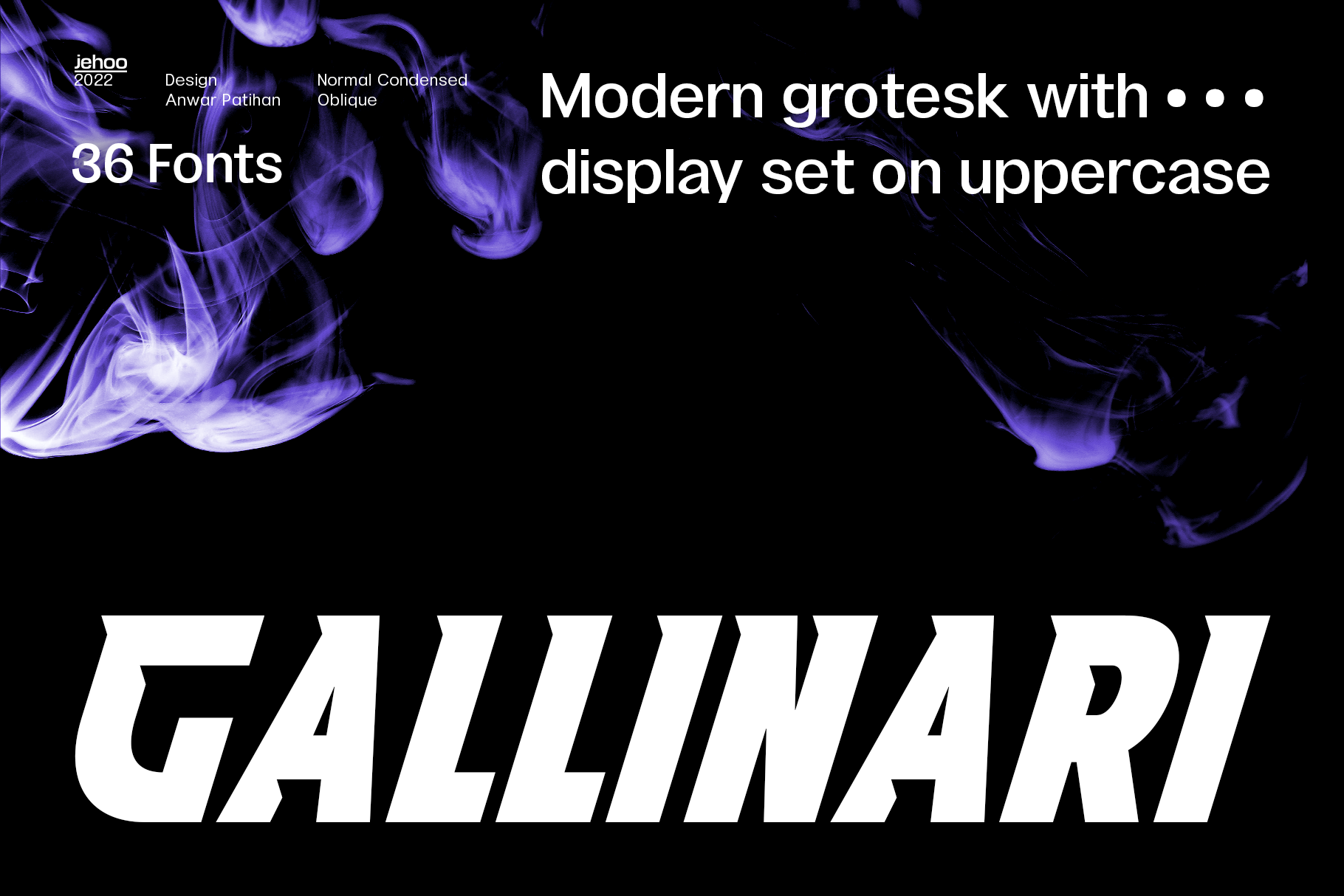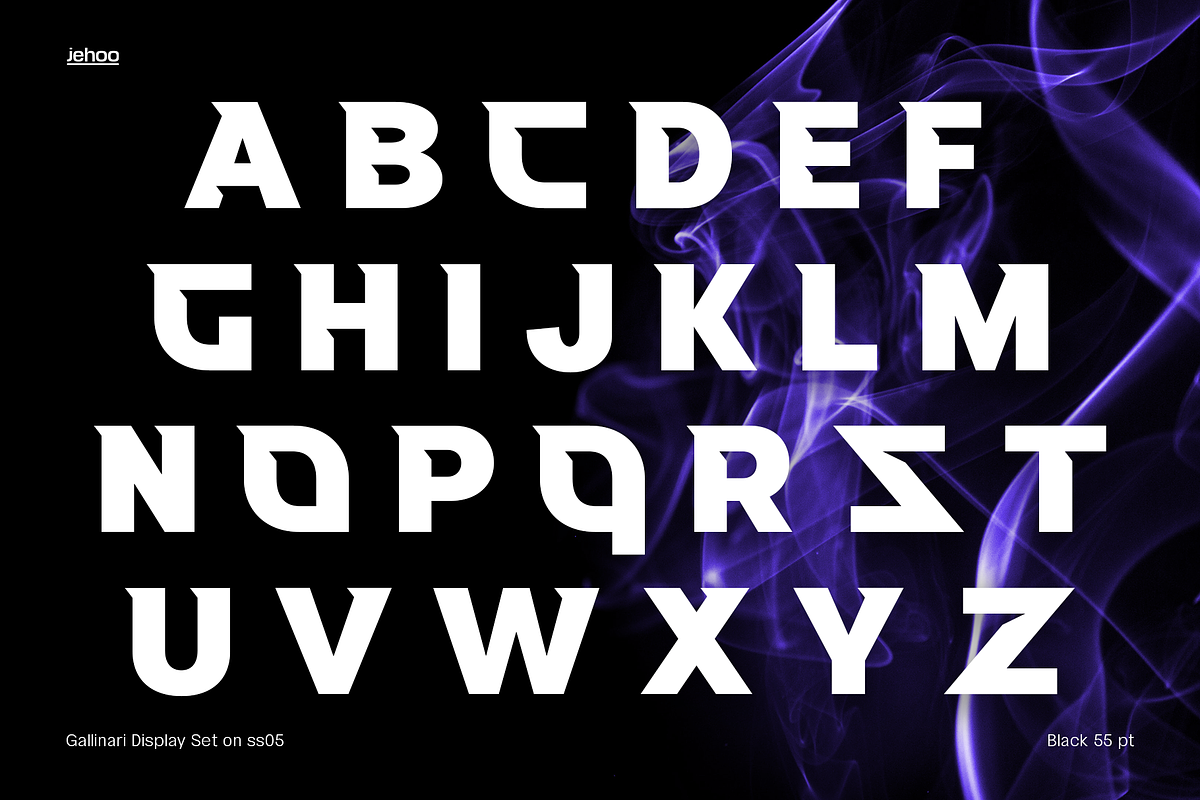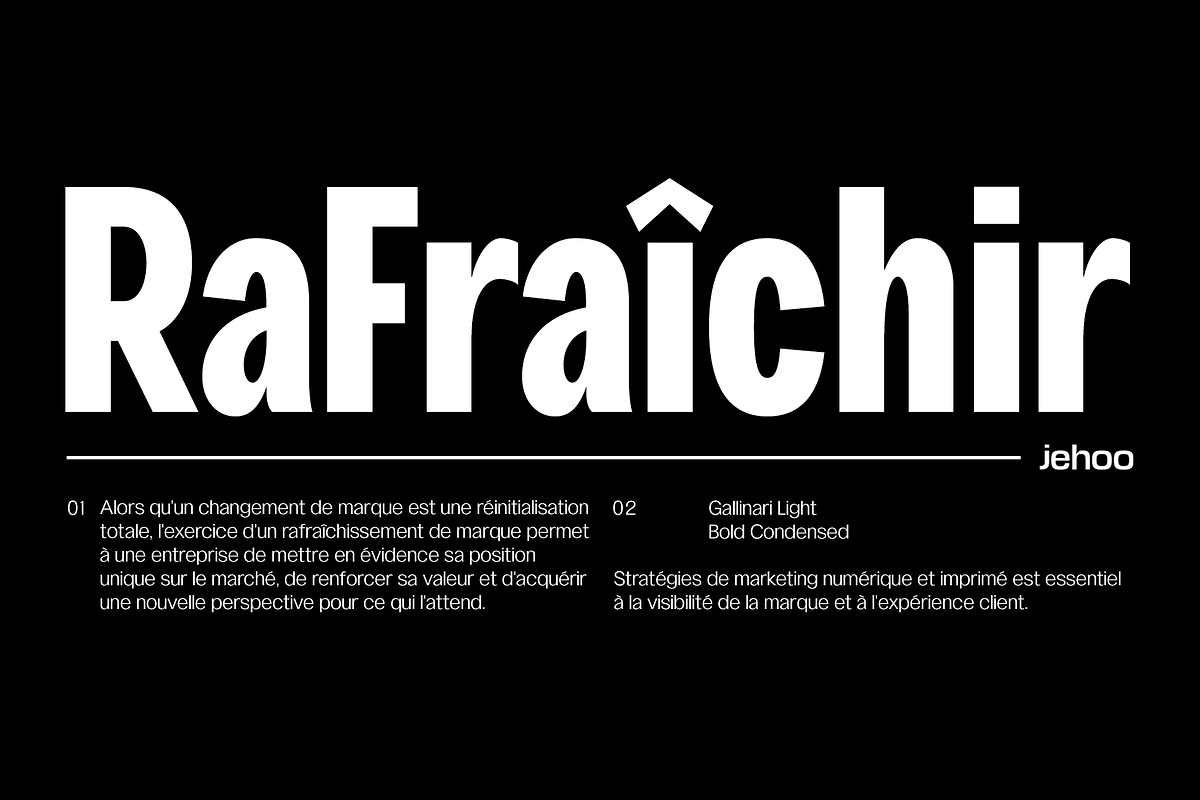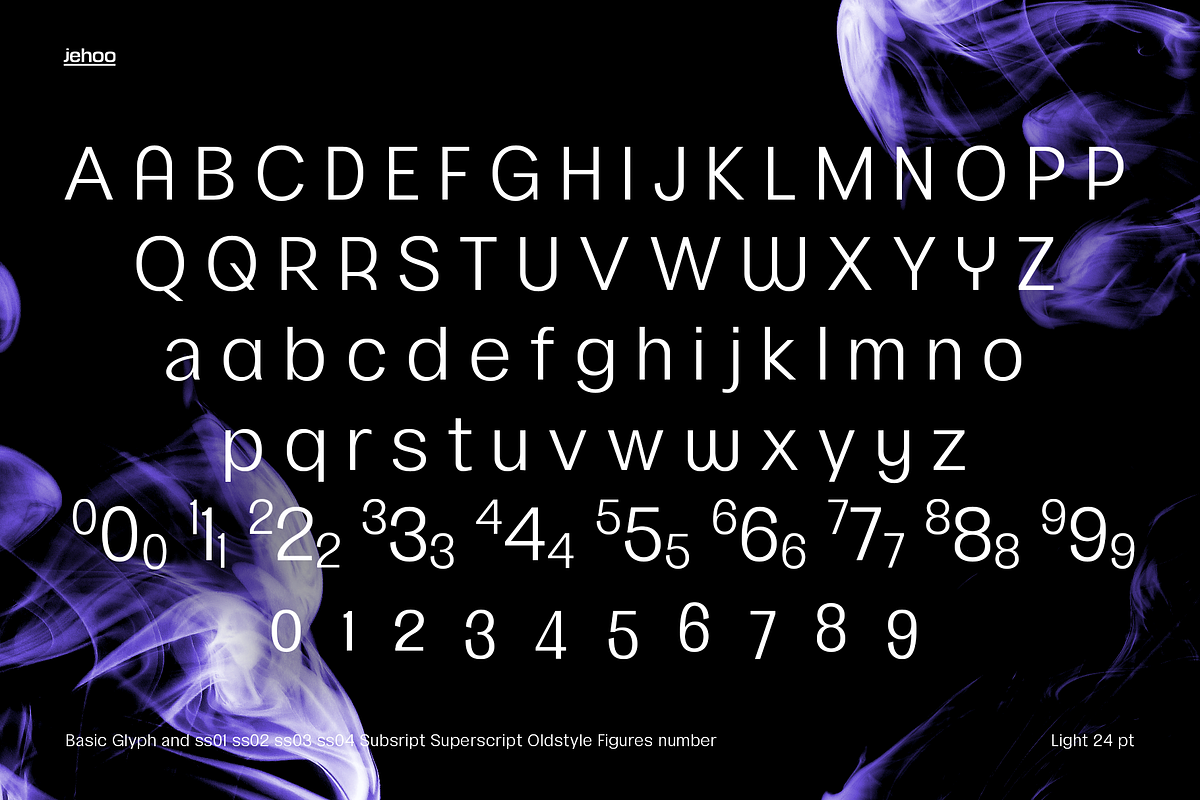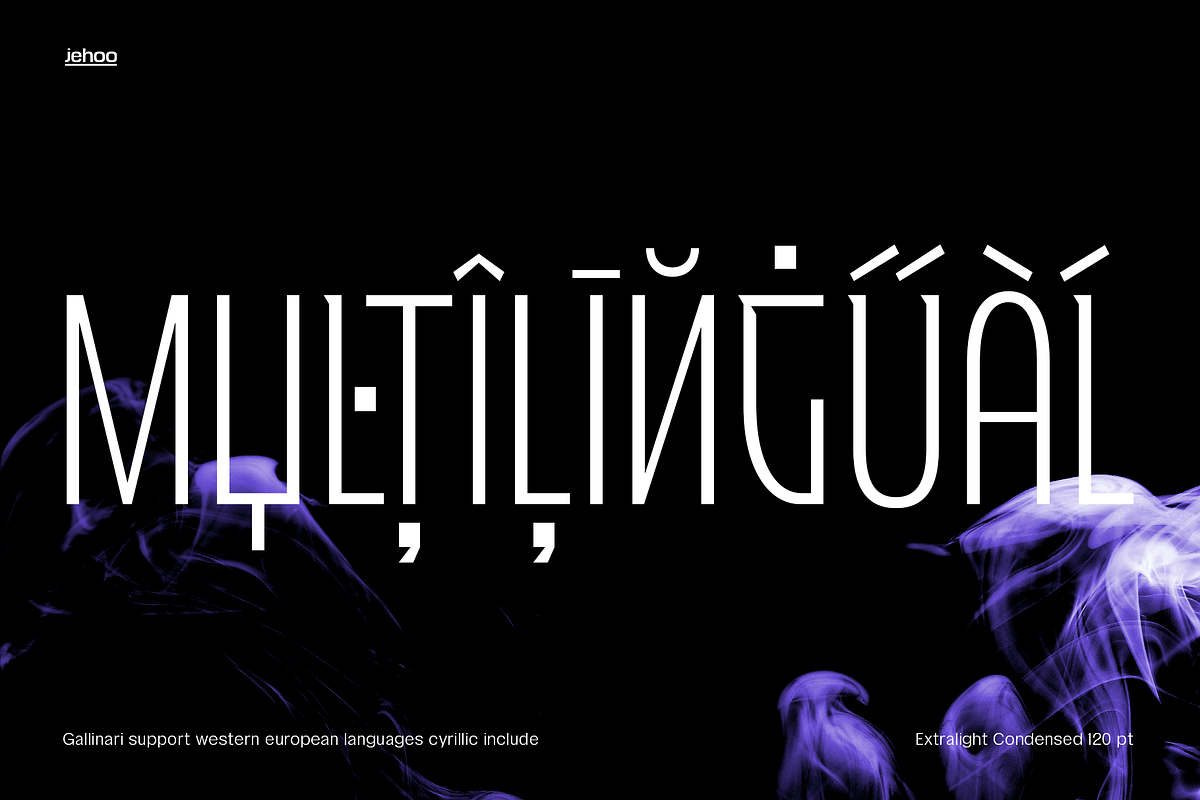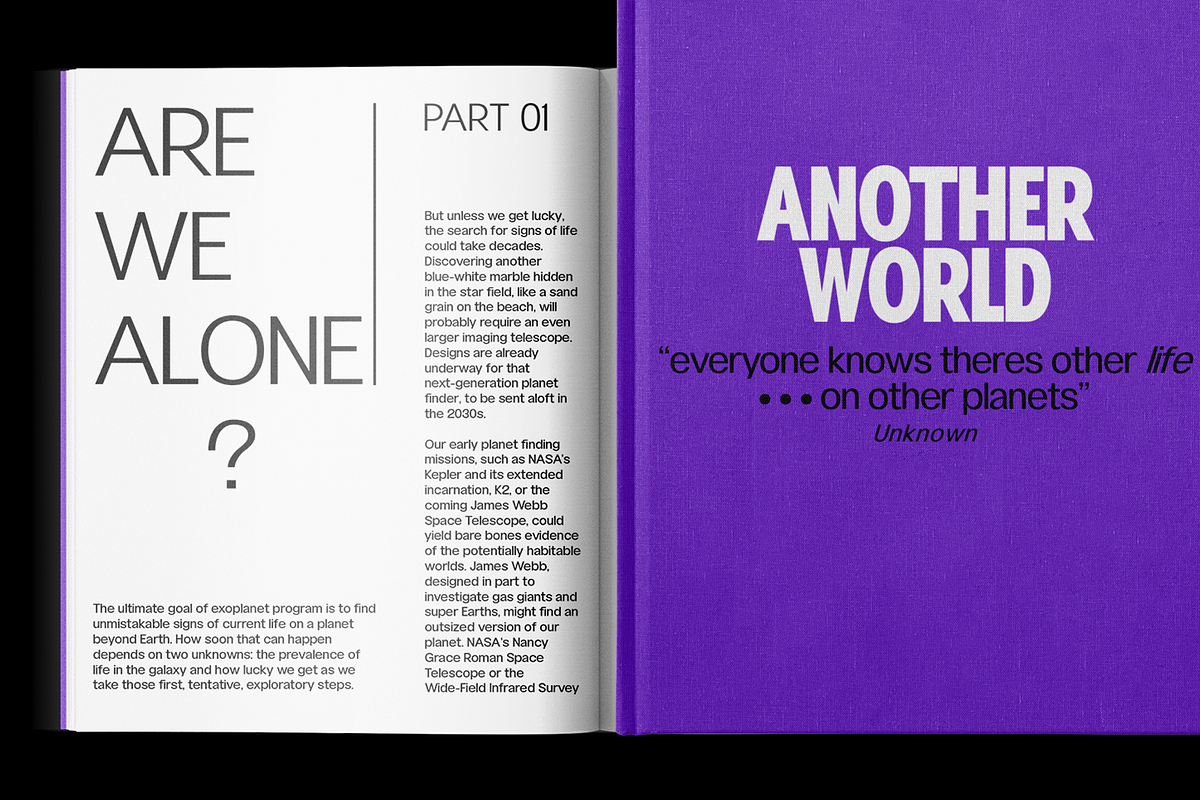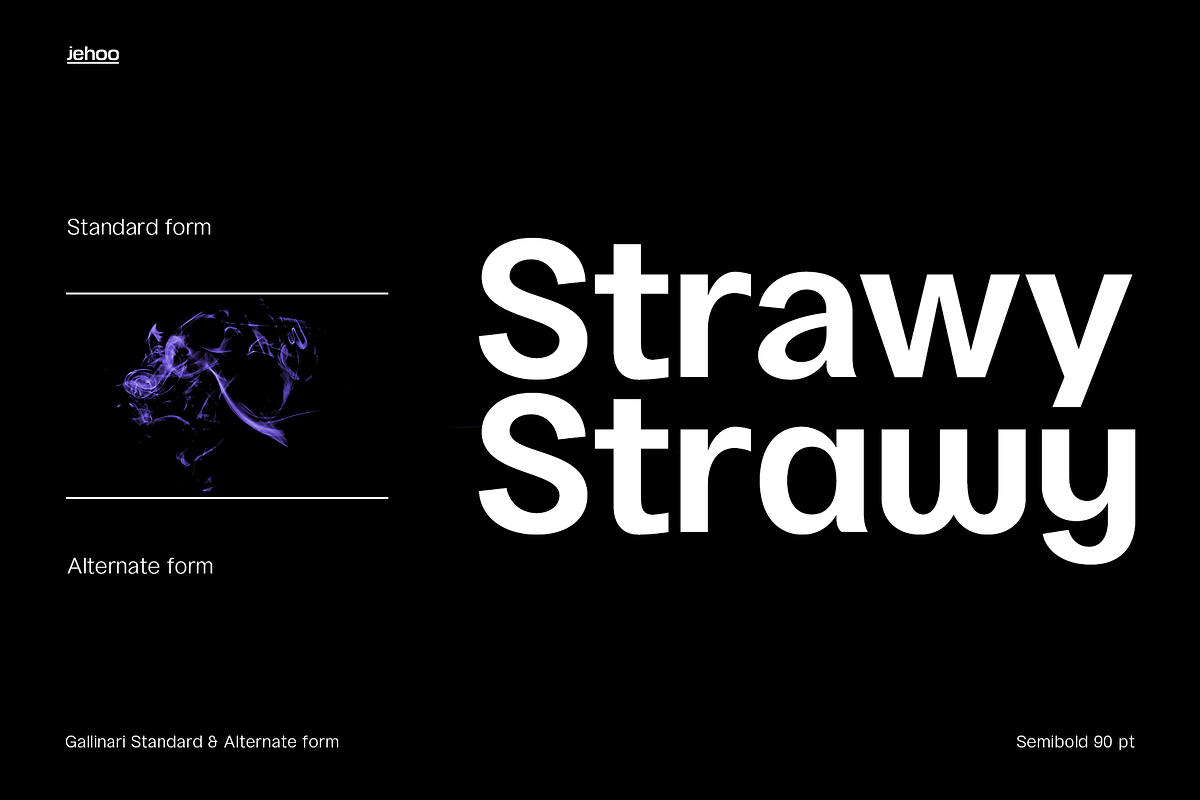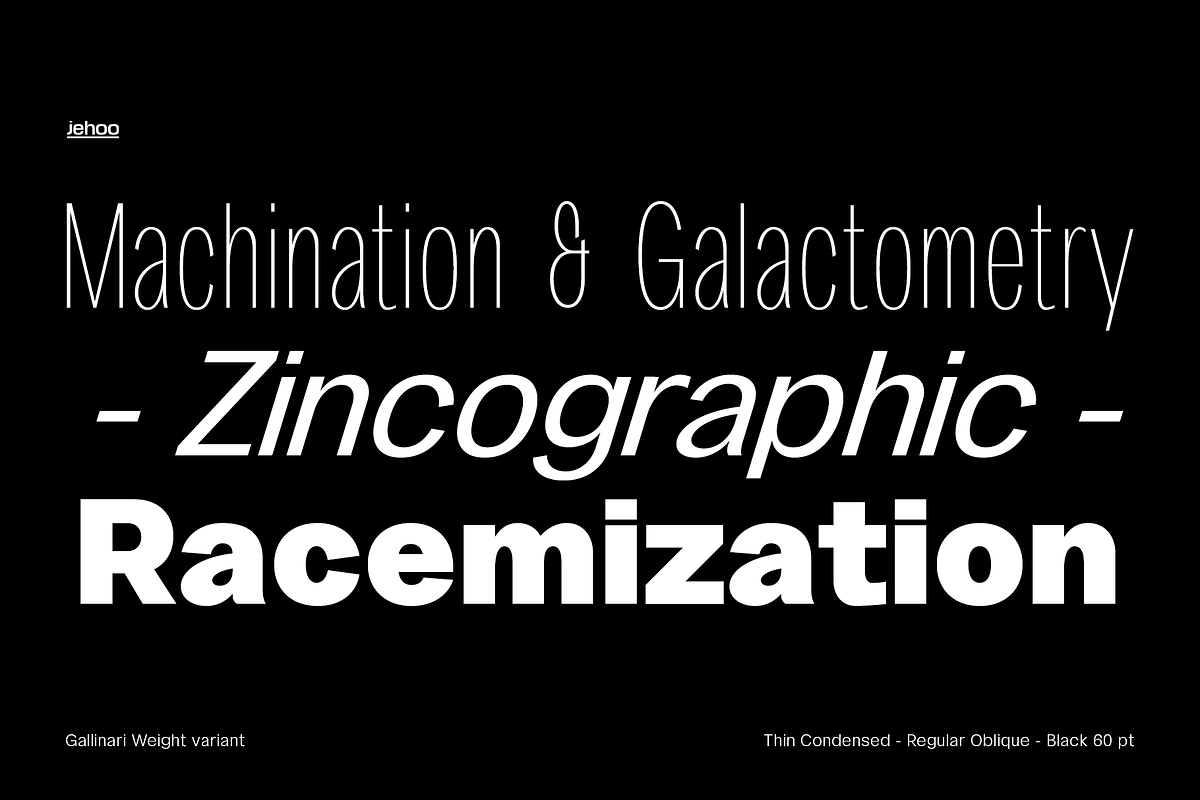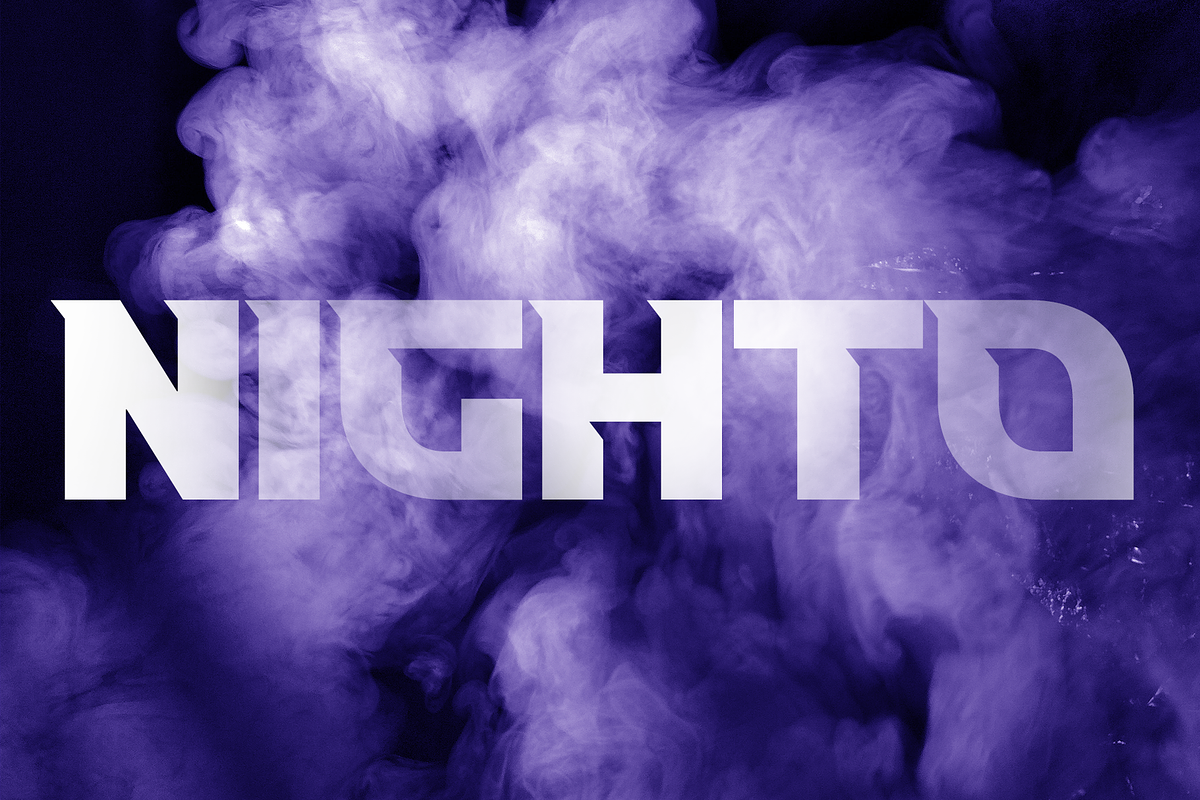
Gallinari - Modern Grotesk 36 Fonts
Modern Grotesk with attractive Display set Gallinari has it.
Gallinari is an attractive Grotesque suitable for all kinds of design needs. Starting from the Heading - Body font is reliable, Has a humanist and geometric character makes it a universal grotesque. Gallinari is equipped with very complete size variants, thin to black, not only that, this font has a condensed style which is paired with Oblique style for a total of 36 fonts in a complete family.
What makes it interesting Gallinari has the Uppercase Display set on ss05 bold and sharp, for the letters C, G, O, Q, S, Z completely changed from their basic shape to meet the wild and cool type of display, ss01 ss02 ss03 ss04 is used to give alternative forms of the basic letters (A, P, R, Q, W, Y, a, w, y).
Each Gallinari style has more than 680 glyphs and supports various Western European and Cyrillic languages.